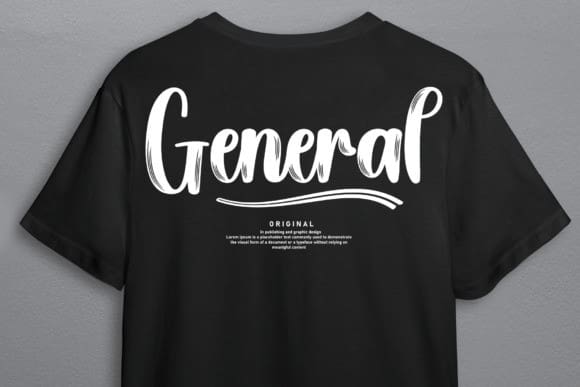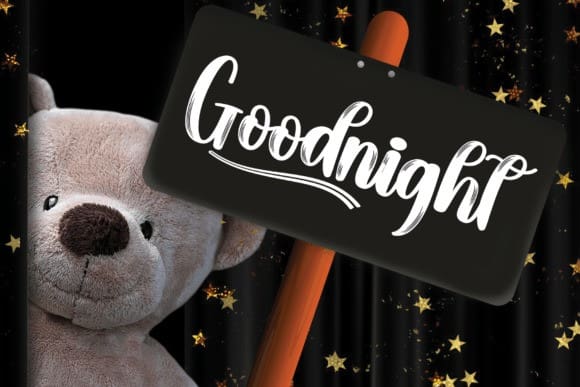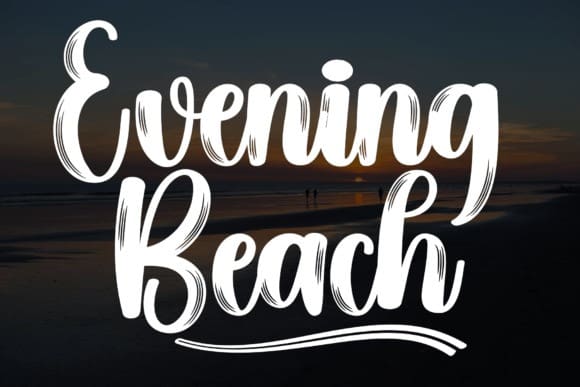
Evening Beach Font
Evening Beach Font is a lovely and timeless handwritten font. It is the best choice for creating eye catching logos, branding and quotes. Every letter has a unique and beautiful touch, which will make your design come alive!